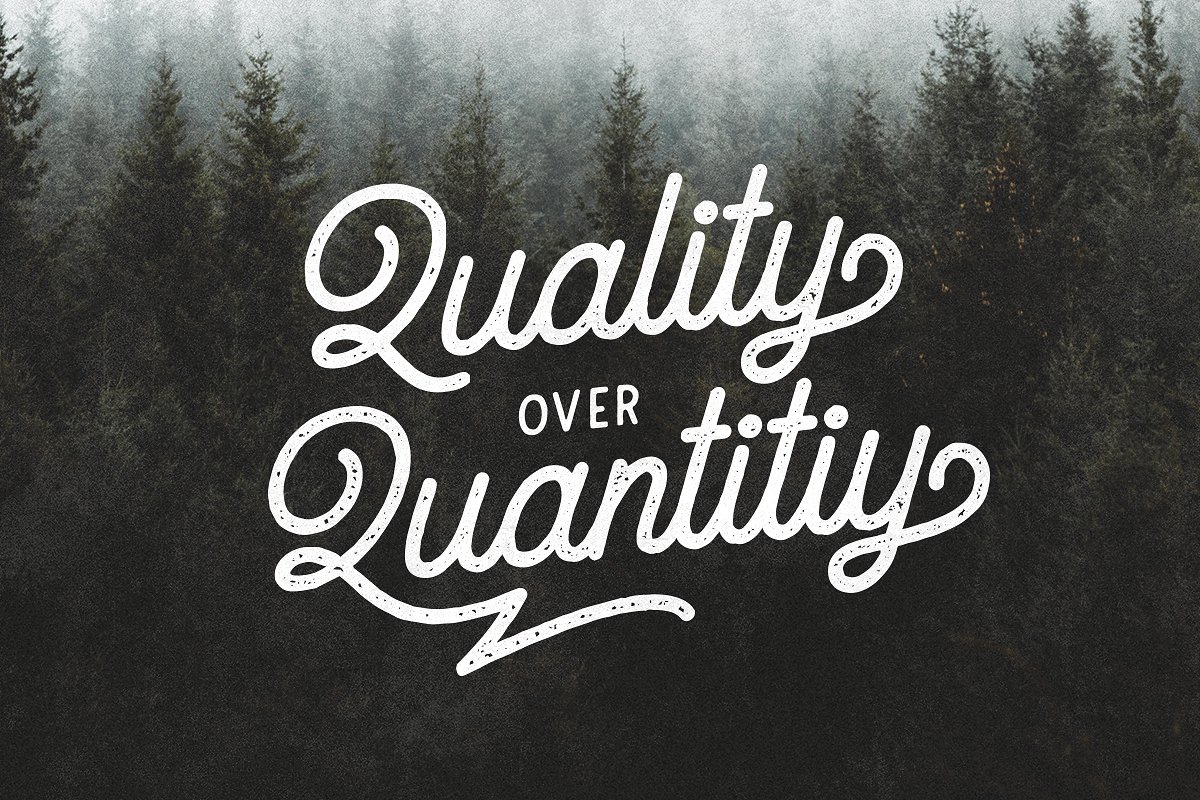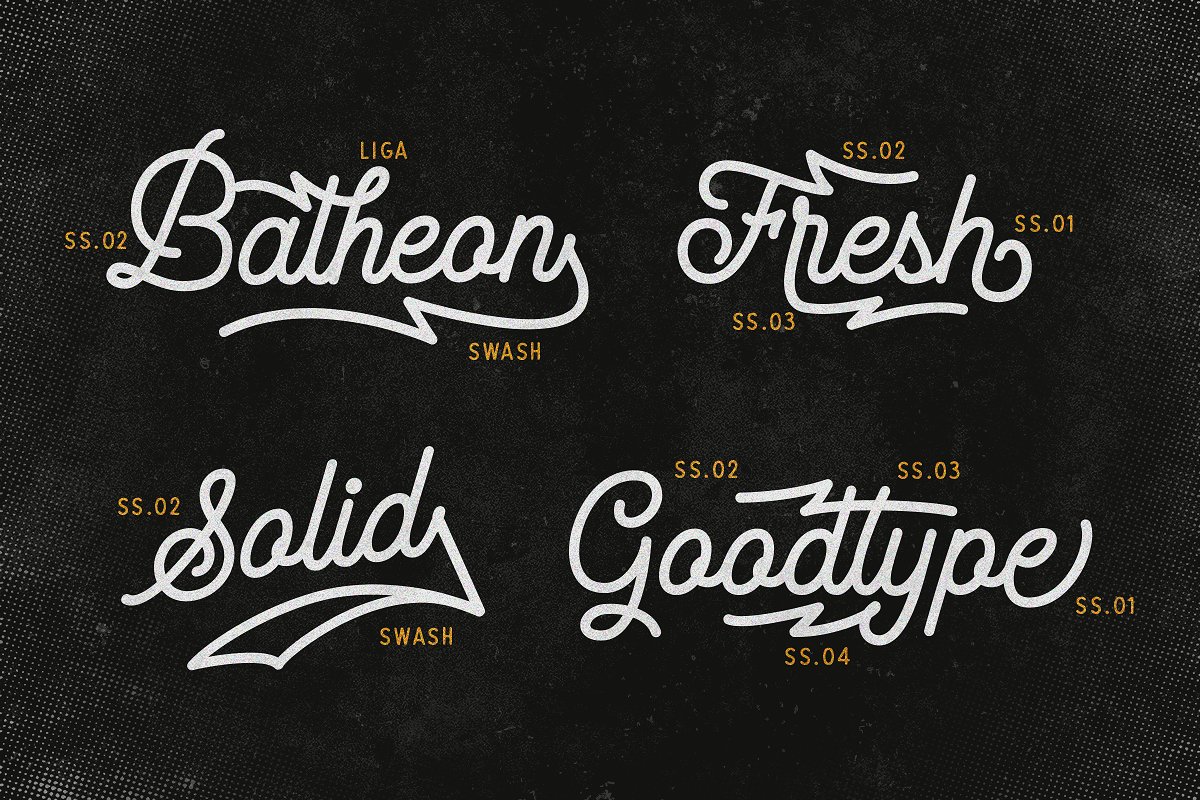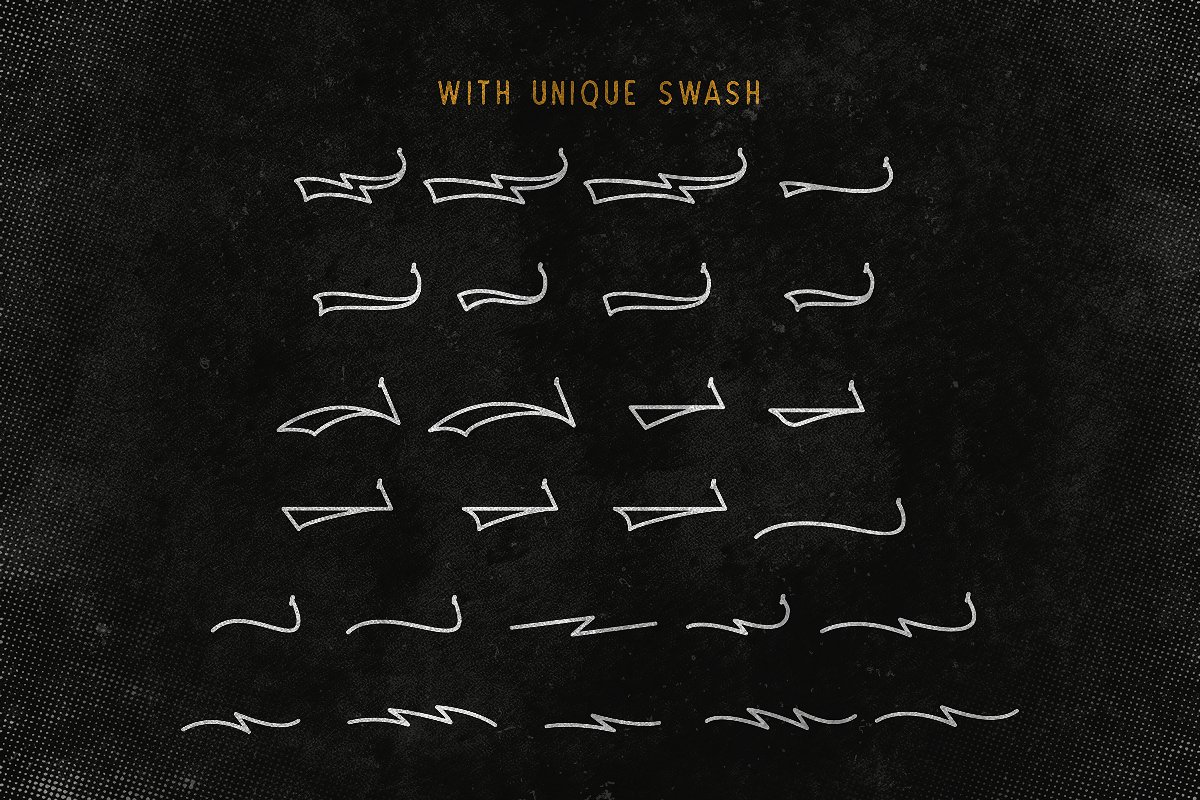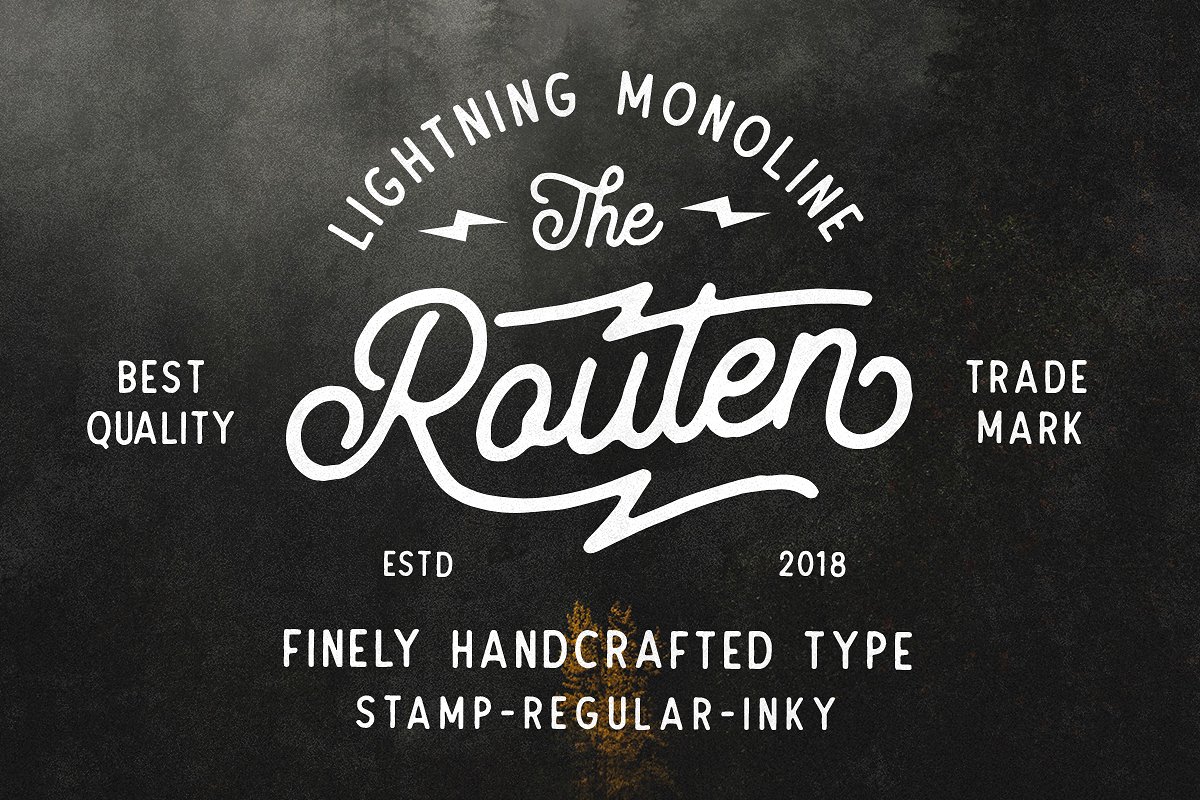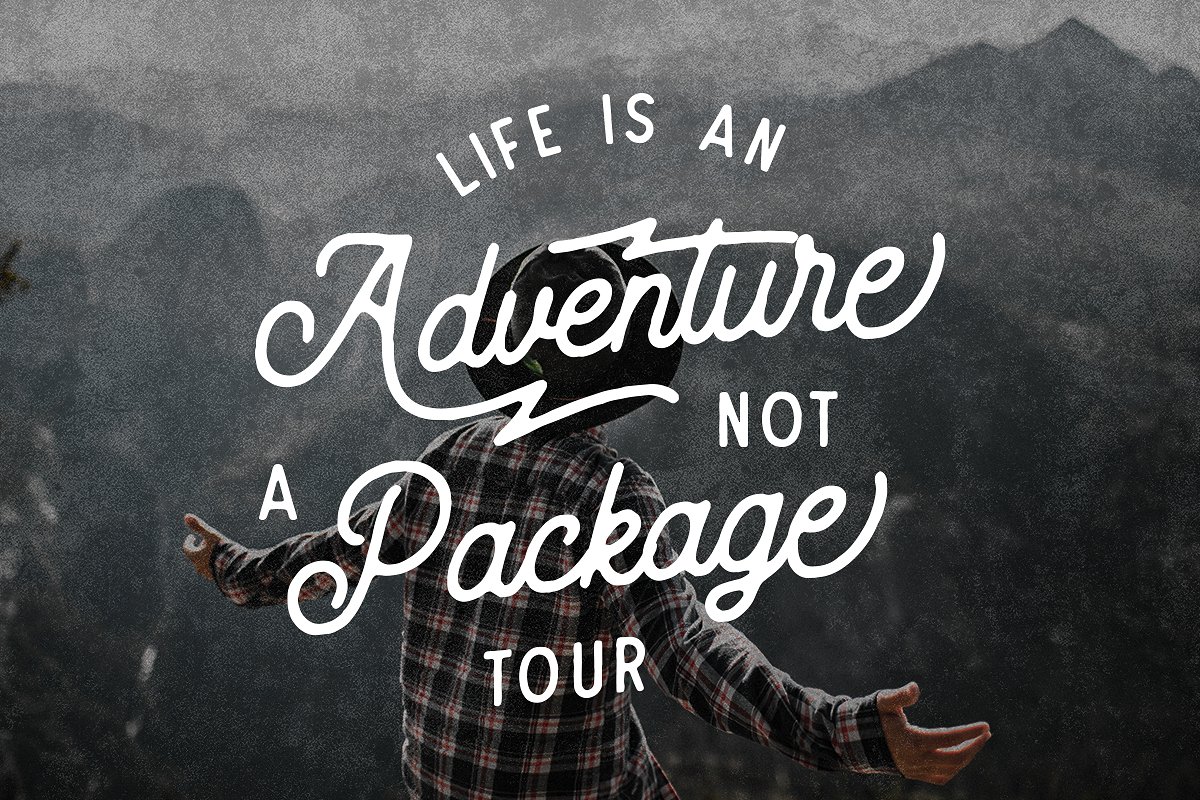
Routen Lightning Monoline Font
Introducing Routen. It is designed by Tyfrography, this is a premium font, are sold on creativemarket, but it was great, it is free today for download. Routen – a Vintage monoline with lightning swash! monoline vintage script typeface which is created with many features such as ligatures, stylistic set alternate, swashes, etc with total 350++ GLYPHS! which is obviously support multi language characters! Provided in both OTF and TTF.